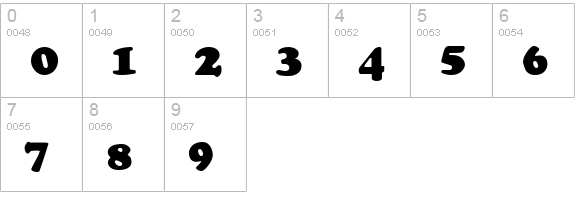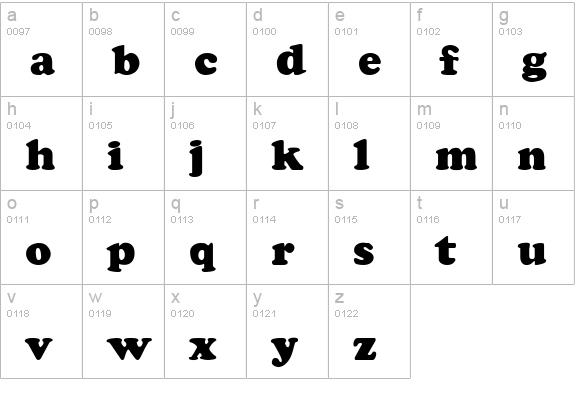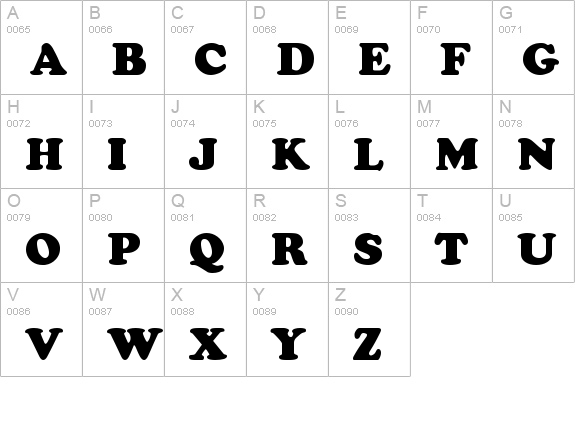
Coolsville Regular Font Details
Coolsville Regular is the standard, neutral variant in the Coolsville typeface family \xE2\x80\x94 well suited to general body text, paragraphs, and standard typographic work.
Coolsville Regular is a sleek and modern font that exudes sophistication and style. With its clean lines and contemporary design, this font is perfect for a wide range of projects, from branding materials to websites and beyond. The versatility of Coolsville Regular makes it a must-have for any designer looking to make a statement. The best part? Coolsville Regular is available for free download at FontsMarket.com, making it accessible to everyone who wants to elevate their design work without breaking the bank. Don't miss out on this opportunity to add a touch of cool to your projects with Coolsville Regular. Download it today and see the difference it can make!